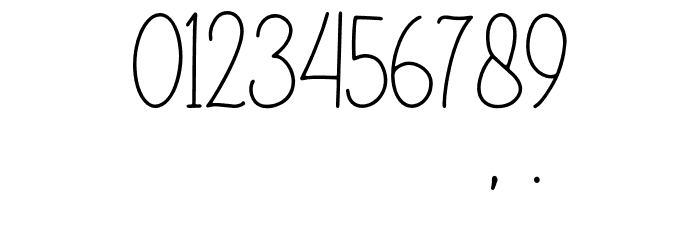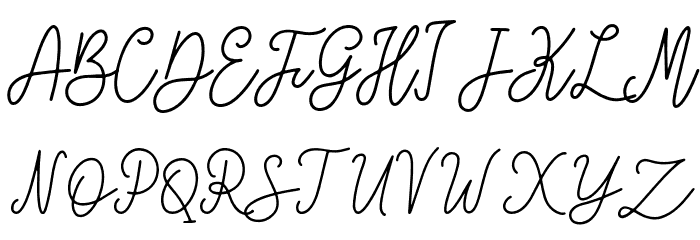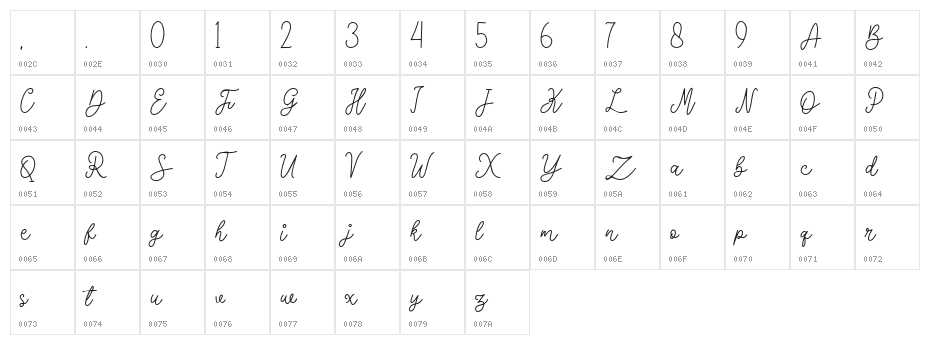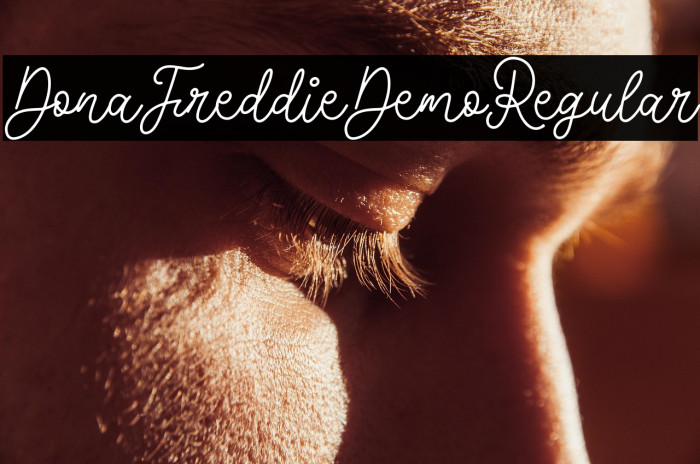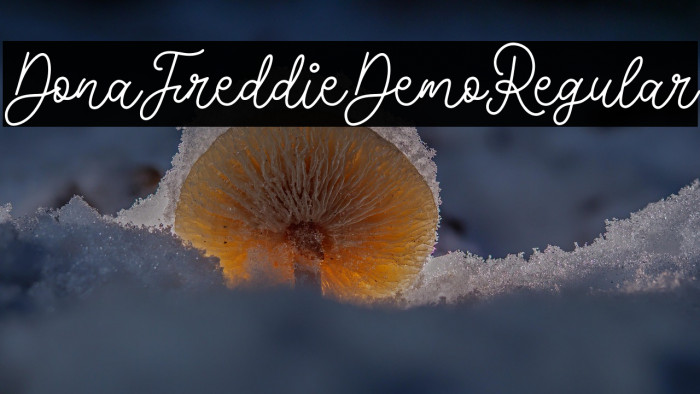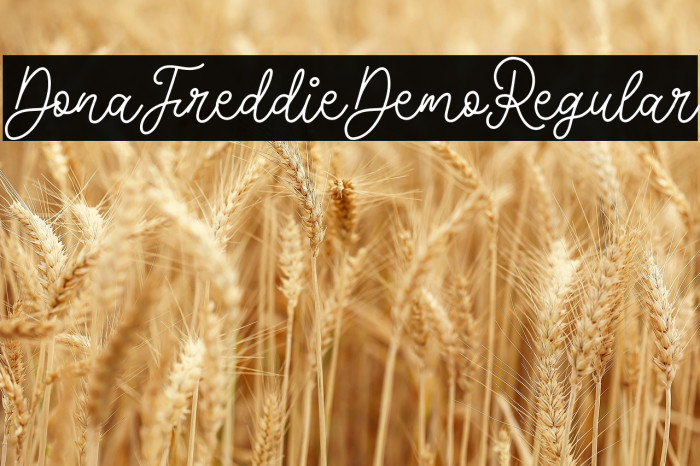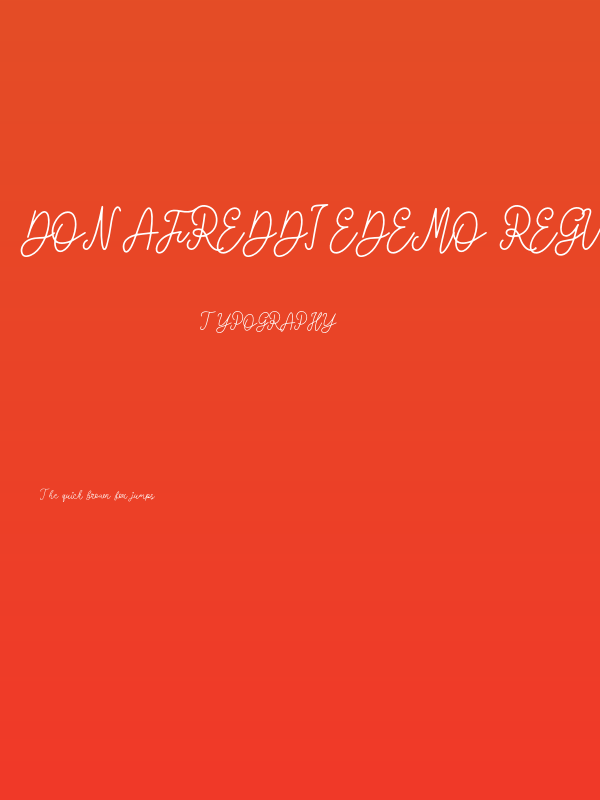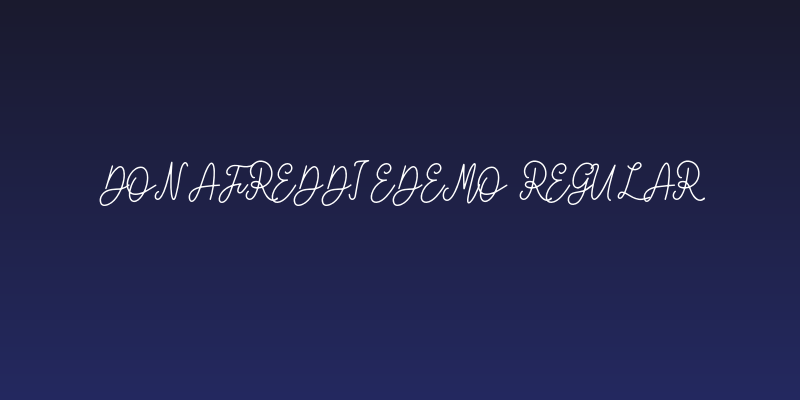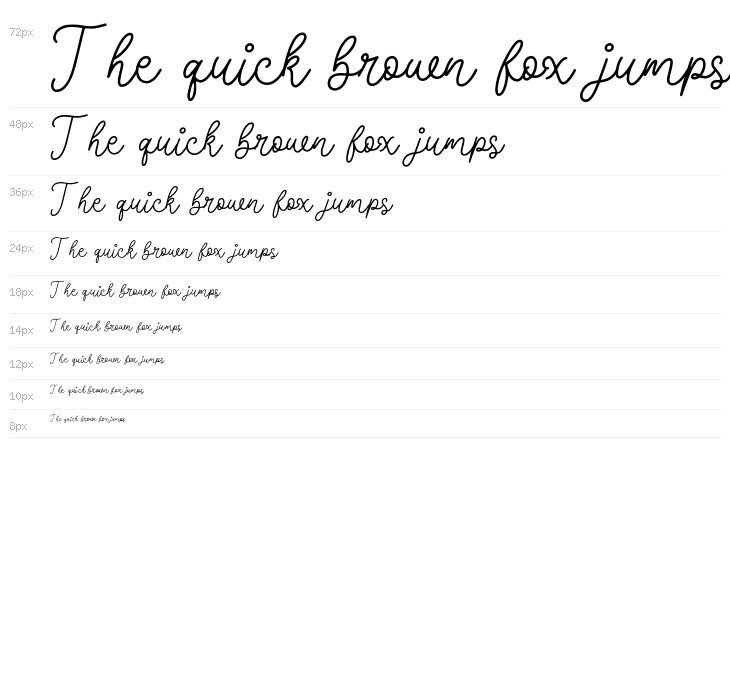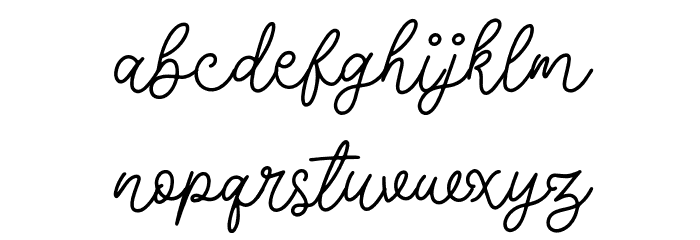
DonaFreddieDemo-Regular Font
DonaFreddieDemo-Regular Description
This font features a charming handwritten style with a smooth, flowing script that exudes elegance and personality. The uppercase letters are tall and slightly slanted, while the lowercase letters maintain a consistent, fluid connection, enhancing the cursive aesthetic. The numerals are clear and legible, complementing the overall design. The special characters are crafted with the same attention to detail, ensuring a cohesive look. This font's delicate strokes and graceful curves make it ideal for projects that require a personal touch.
| Overall Style | Elegant |
| Use Case | Logos, Invitations, Personal Branding |
| Proposed Projects | Ideal for wedding invitations, greeting cards, personal branding, and elegant packaging designs. |